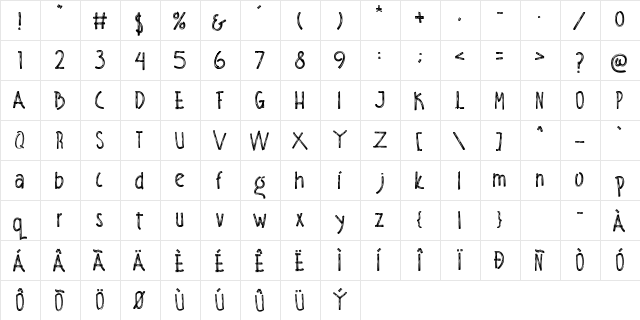
Eraser Head Regular
| Designer | JujunGag2020 |
Design Context for Eraser Head Typeface
Eraser Head is a composed and adaptable typeface that performs quietly and consistently across a wide range of design contexts.